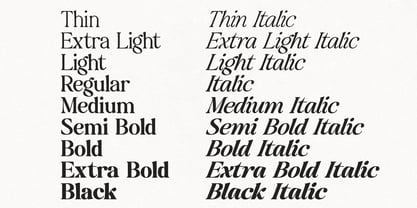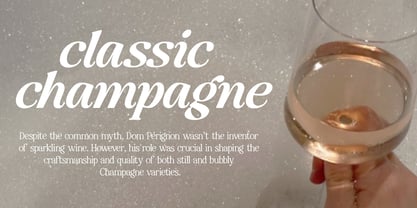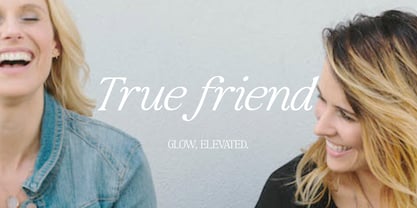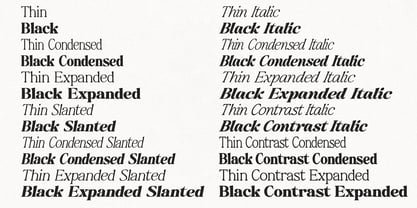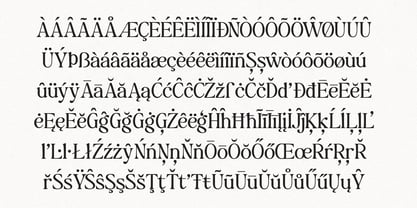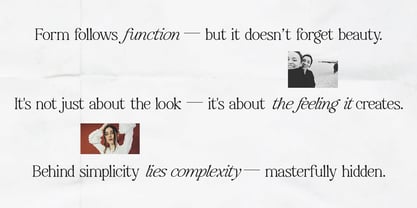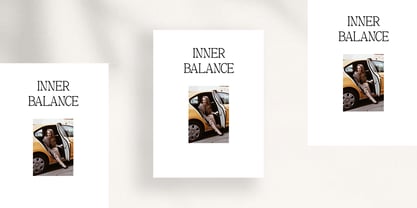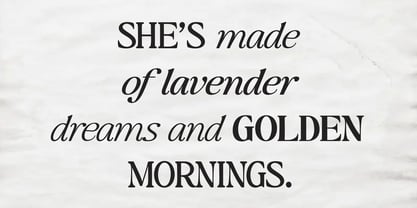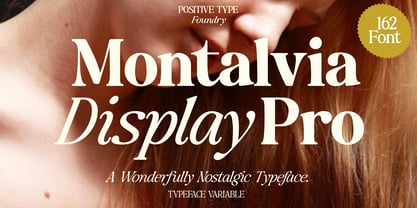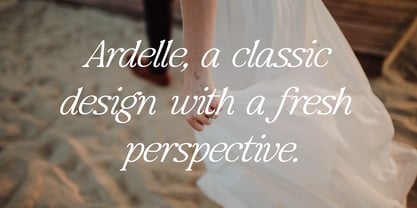
Montalvia Display
The Montalvia Display Font Family was designed by Nur Hayati and published by Positive Type. Montalvia Display contains 162 styles and family package options. More about this family
Introducing Montalvia Display, a beautifully crafted serif typeface that captures the nostalgic charm of classic editorial fonts — now reimagined as a modern, high-performance display family. Designed for designers who crave both character and control, this typeface is a love letter to timeless typography, wrapped in a fresh and flexible digital form. With a staggering 162 font files, including complete static weights and a fully functional variable font, Montalvia Display offers incredible depth for any project — from delicate hairlines to rich bolds, all delivered with exceptional clarity and rhythm. Whether you're building a fashion campaign, curating a luxury brand, or crafting a statement quote, this typeface evokes sophistication with a distinct personality. Features: • 162 total font files (includes static + variable formats) • Variable font axis for weight and optical size control • Thin to Extra Bold styles, plus matching italics • Uppercase, lowercase, numerals & full punctuation • Latin-based multilingual support • Elegant ligatures & stylistic alternates • Swashes for selected capital letters (A, D, H, K, P, R, etc.) • Canva-compatible alternates (easily accessed via FontBook) • Perfect for: Editorials, logos, packaging, fashion, posters & high-end branding Montalvia Display is more than just a font — it's a design companion for creatives who value aesthetics, emotion, and versatility. Add this nostalgic gem to your collection and elevate every layout with poise and presence.